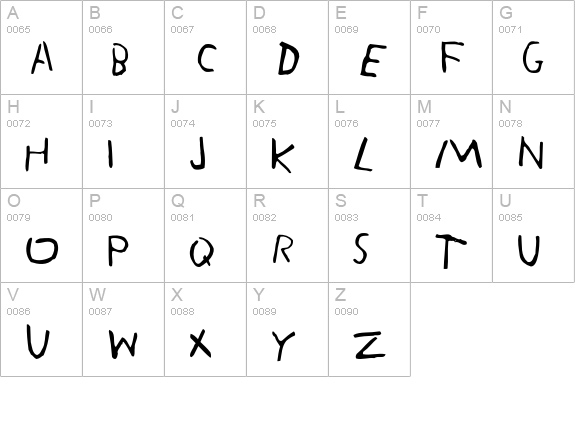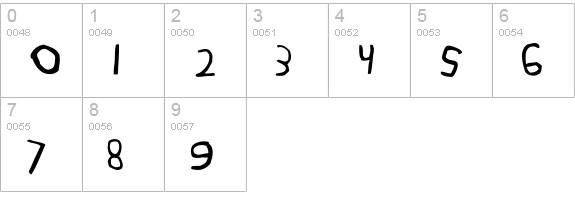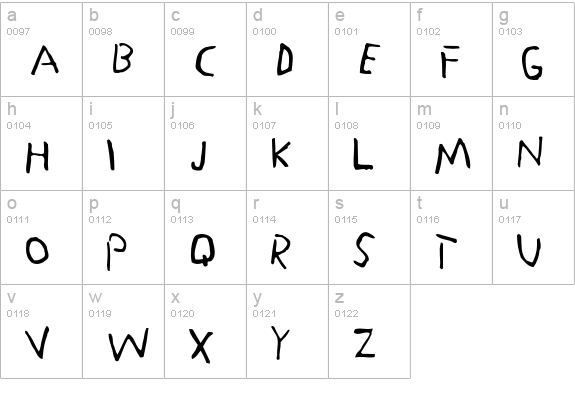
Basquiat font is a striking and expressive typeface inspired by the iconic artistic style of Jean-Michel Basquiat. Its bold, hand-drawn letterforms exude a raw energy and urban flair, making it perfect for adding a touch of artistic sophistication to your designs. The Basquiat font captures the essence of street art and graffiti culture, with its dynamic and edgy appearance that commands attention. This unique font is available for free download at FontsMarket.com, allowing you to unleash your creativity without any cost. Whether you're working on a poster, branding project, or any other design that calls for a bold statement, Basquiat font will surely make a lasting impression. Embrace the artistic spirit and make a statement with Basquiat font today!